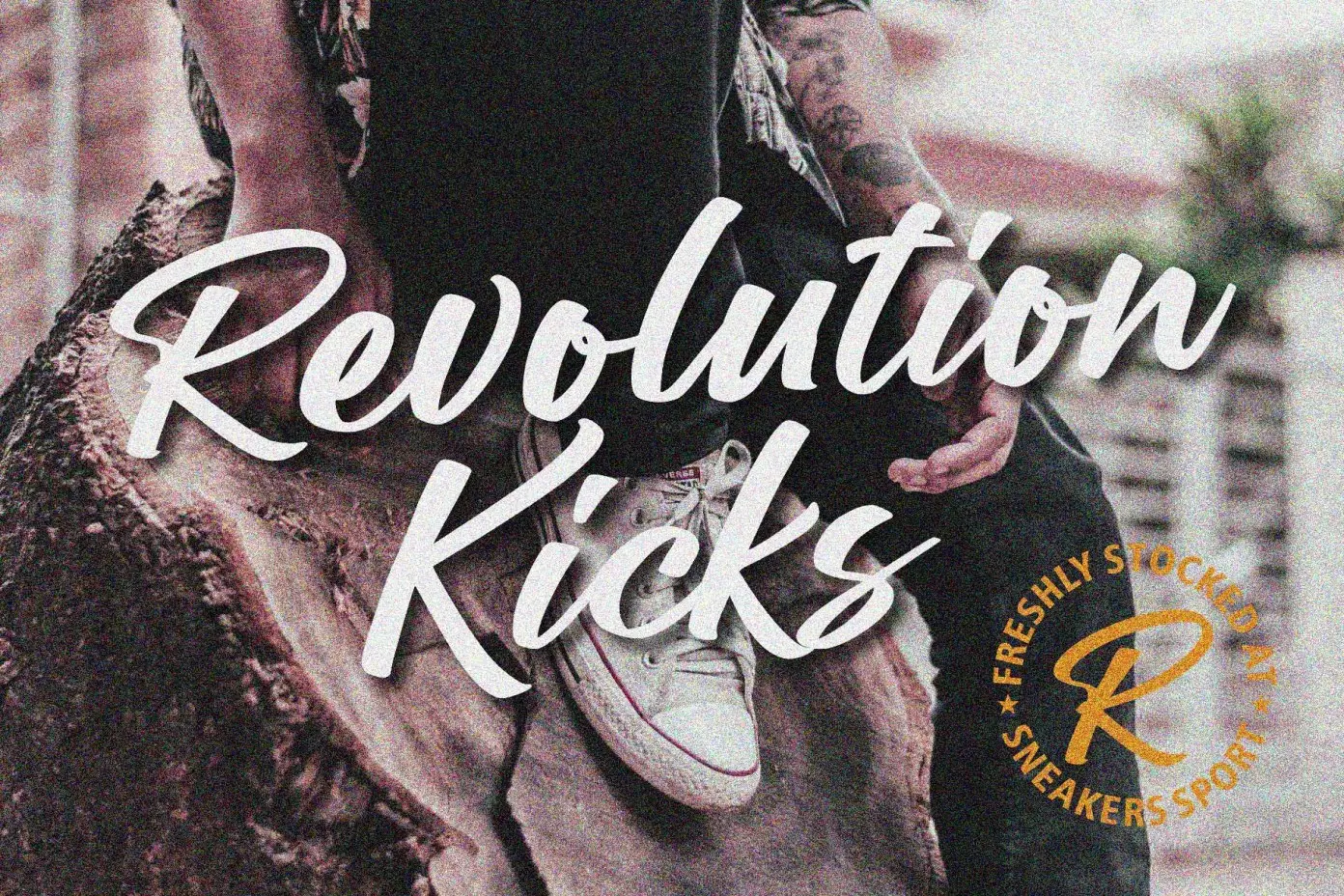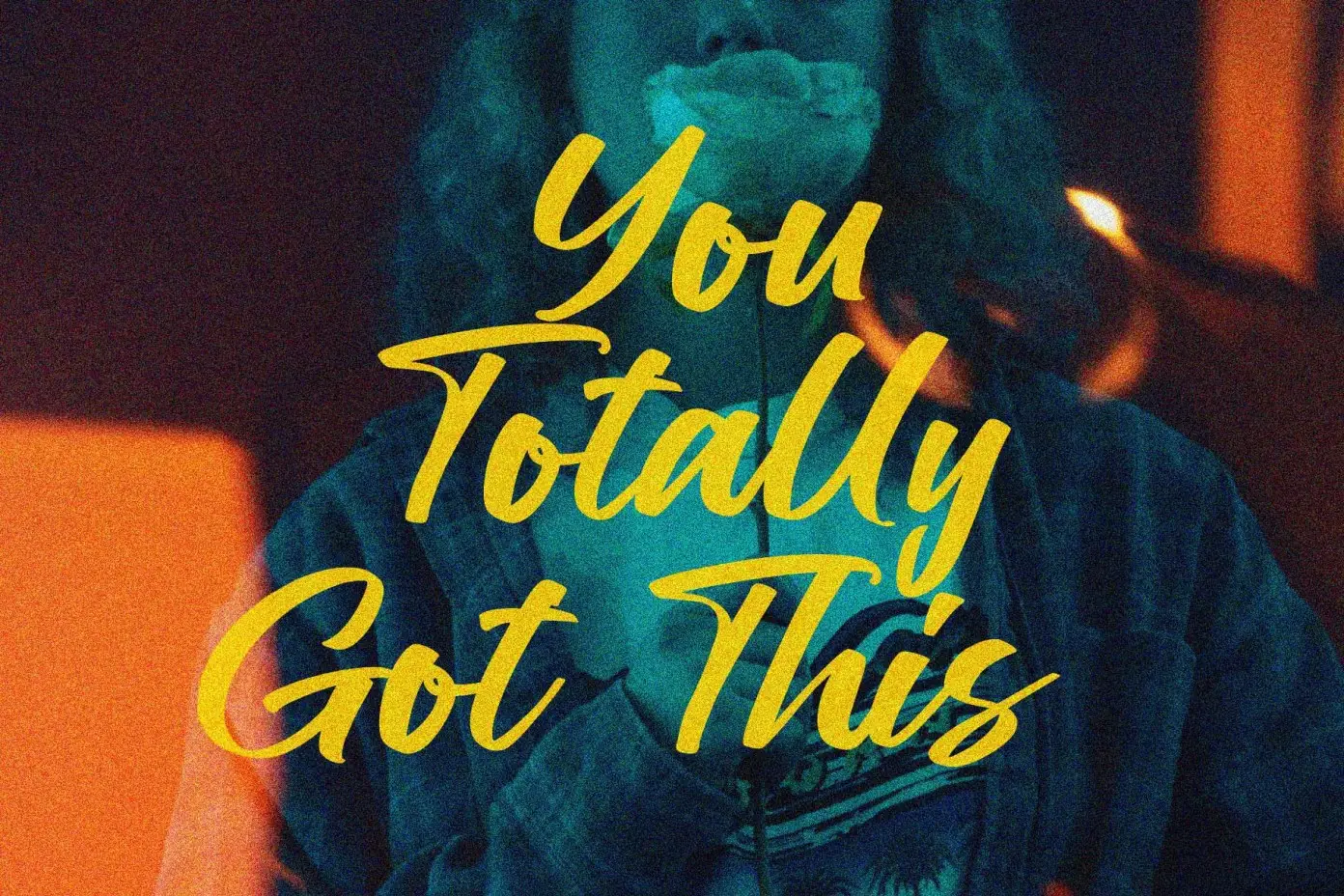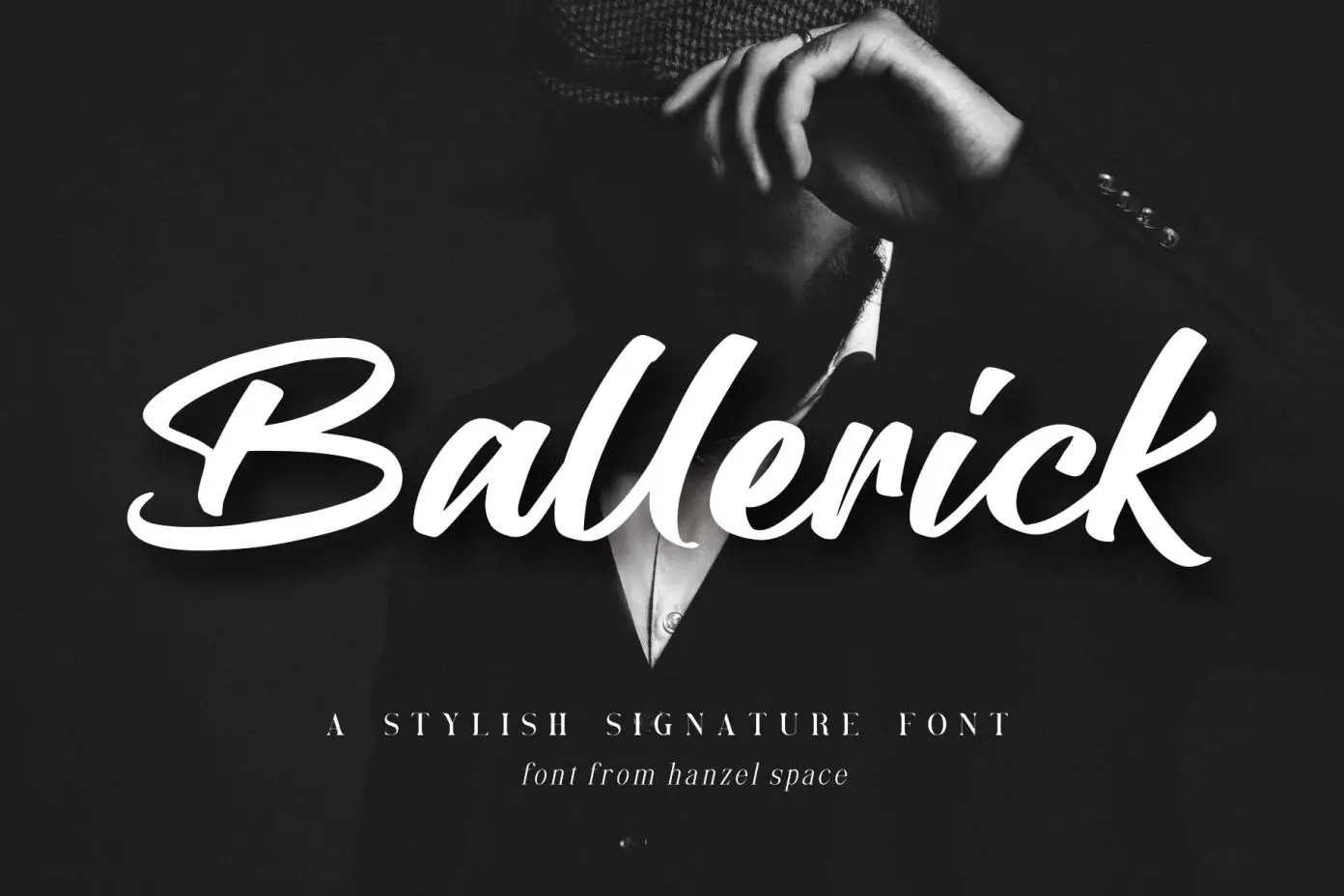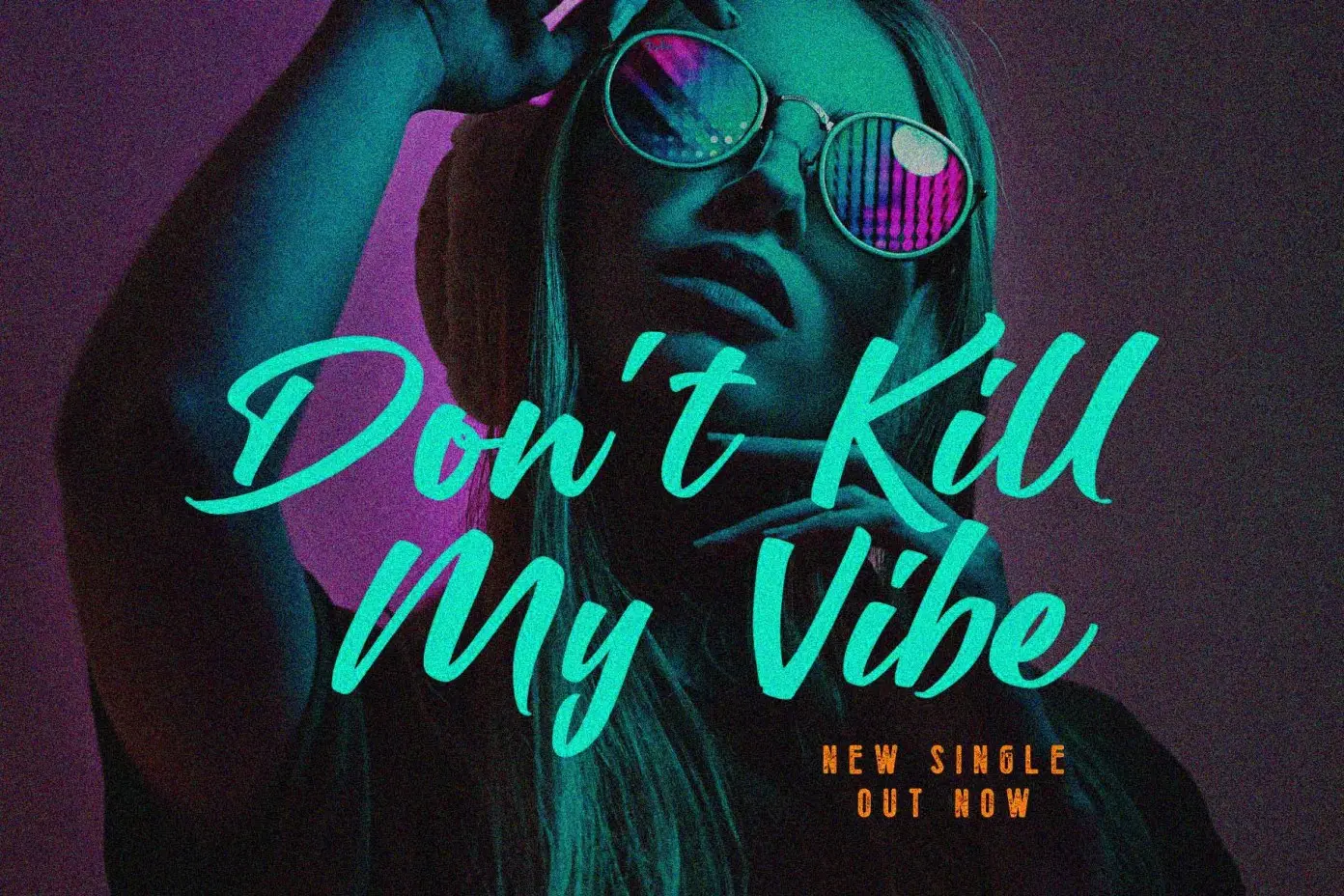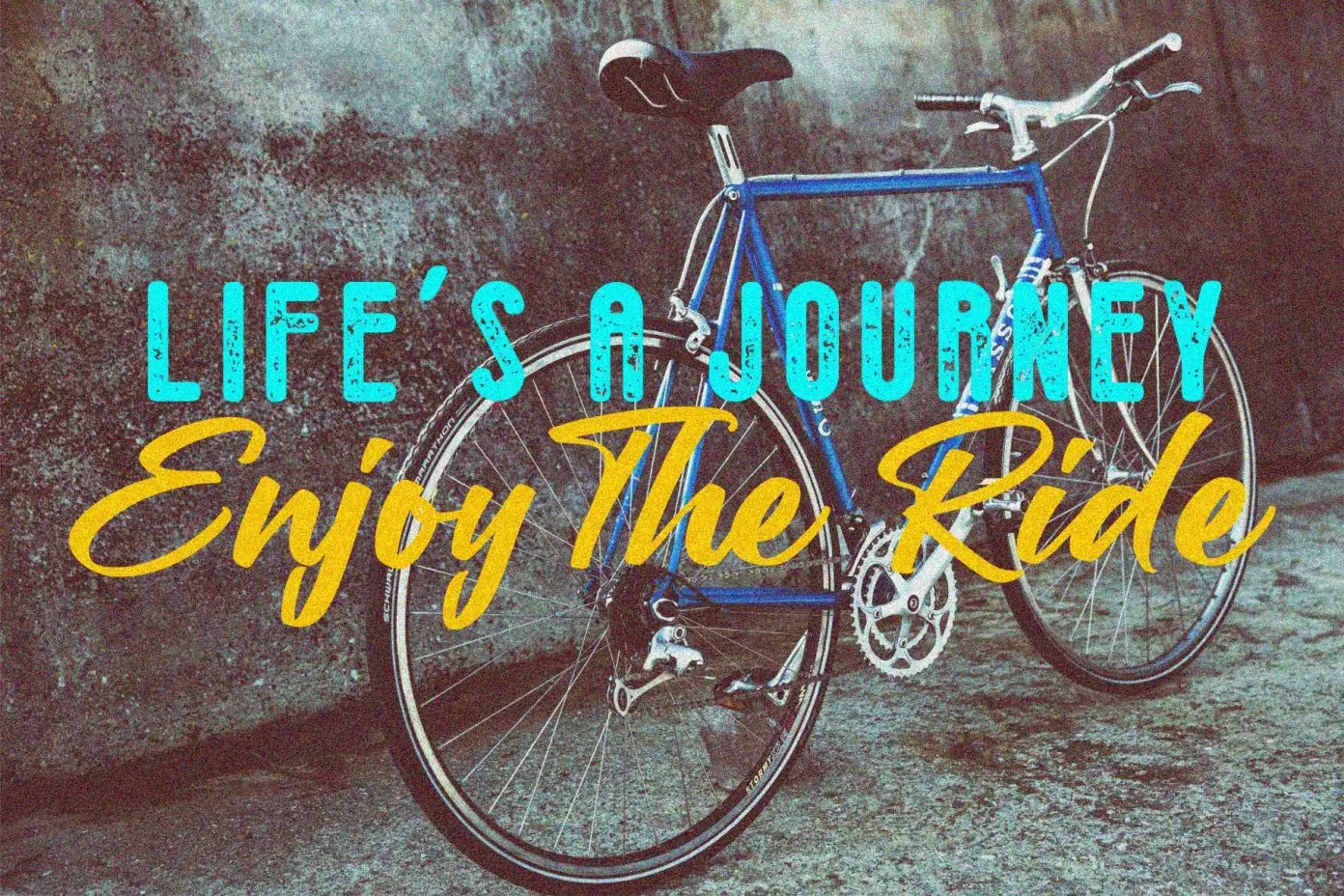
Ballerick Script Font
The Ballerick Script Font is a beautifully crafted typeface that embodies elegance and sophistication. Ideal for various design projects, this font features a flowing script style that adds a personal touch to your creations.
Ballerick Script Font includes multiple weights, allowing for versatility in design. It is available in OTF and TTF formats, ensuring compatibility across different platforms.
Utilize the Ballerick Script Font for branding, logos, invitations, and web design to create a unique and memorable visual identity. Its elegant strokes make it perfect for both print and digital applications.